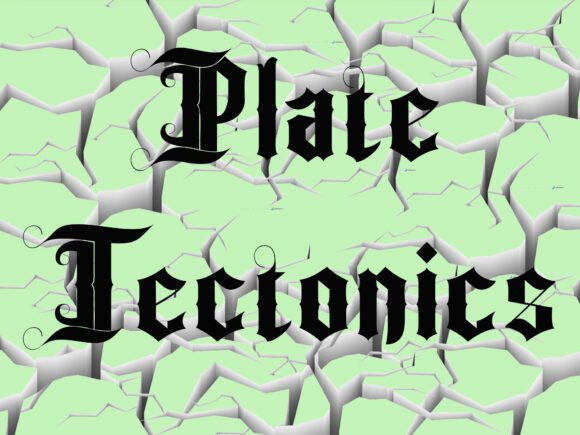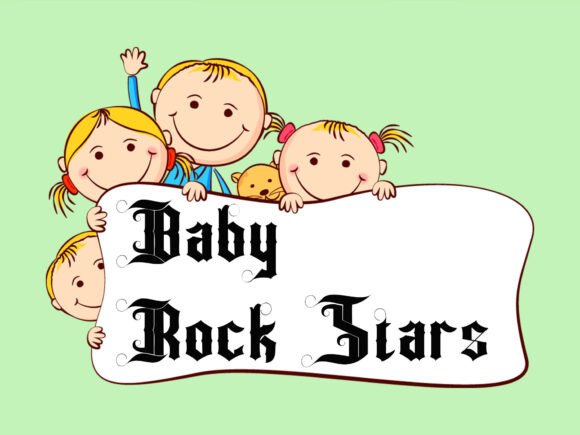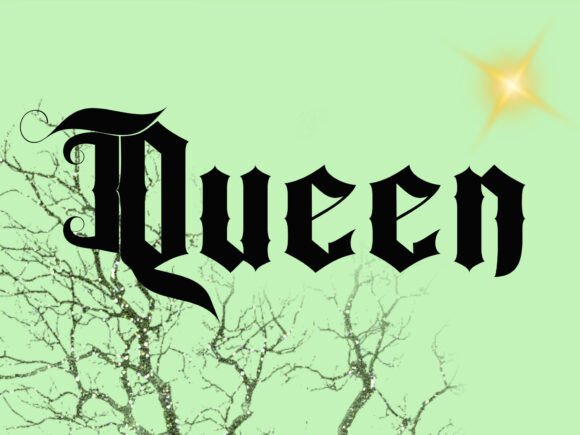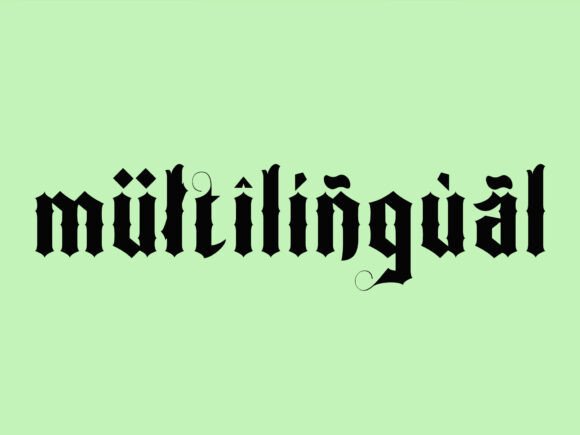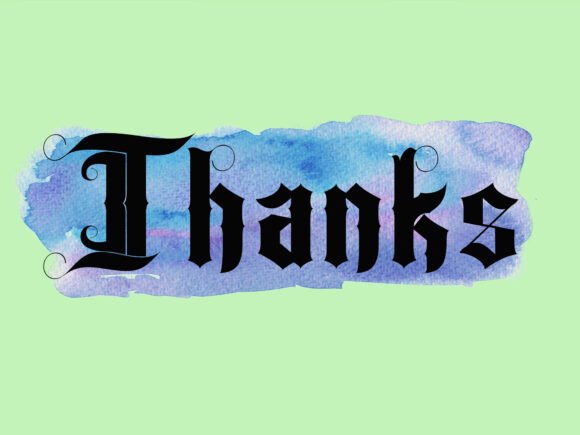
Introduction to Ringonk Font
This is a stylish and bold and beautiful new blackletter font that perfectly offers beautiful typographic harmony for a wide variety of design projects, including logos and branding, social media posts, advertisements, greeting cards, stationery designs, invitations, T-shirts, clothing, packaging, posters, and much more for other product designs.
Key Features of Ringonk Font